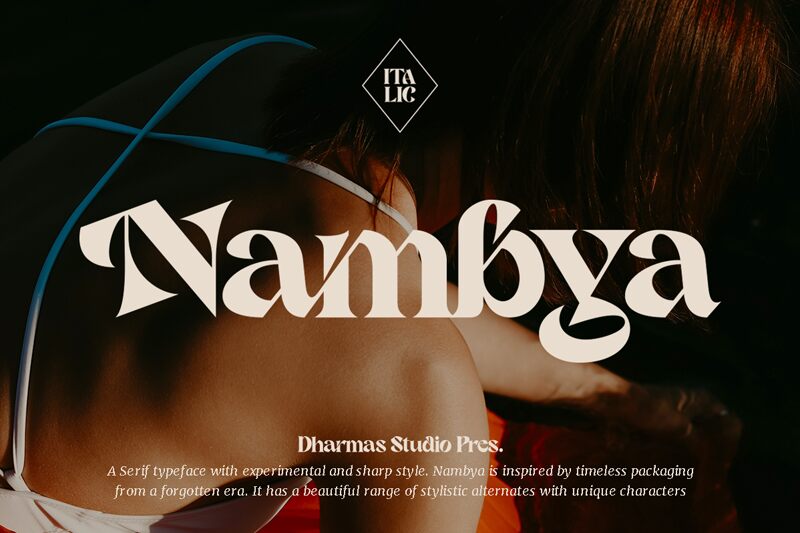
Nambya is an old-school serif font designed by Jamaludin Ahmad Sahestya Dharma. It has a bold and unique look that makes it stand out, perfect for creating eye-catching headlines. Its classic yet modern look makes it suitable for a wide range of projects, from logos to posters, book covers to magazines. With its timeless design and bold style, Nambya is sure to make any project stand out!